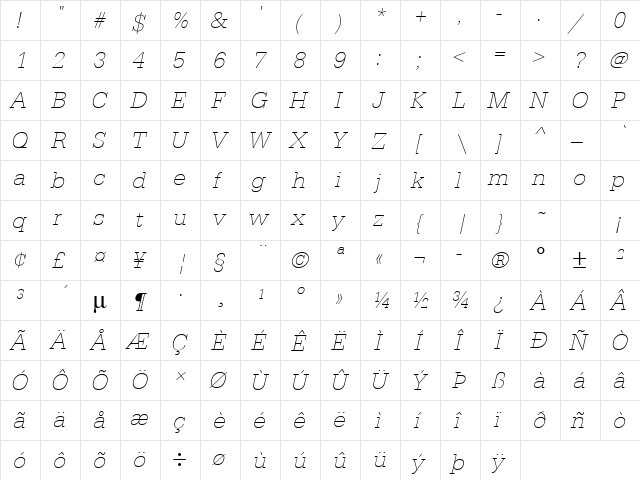
URWTypewriterTExtLig Oblique Font Preview
Design Context for URWTypewriterTExtLig Typeface
URWTypewriterTExtLig uses fixed-width spacing throughout, giving it the structured, systematic character associated with coding environments and technical documentation. The dynamic lean of this cut emphasises speed and emphasis in any layout.
Well-suited to data-driven dashboards, coding tutorials, and any design that wants to reference the world of programming.
Pro Tip: Use URWTypewriterTExtLig with slightly increased line-height for extended reading — fixed-width spacing can feel dense in longer passages without extra breathing room.